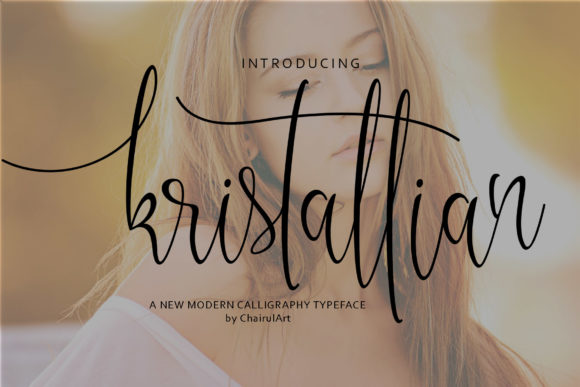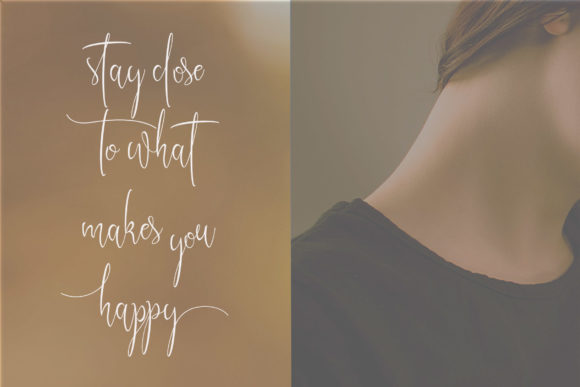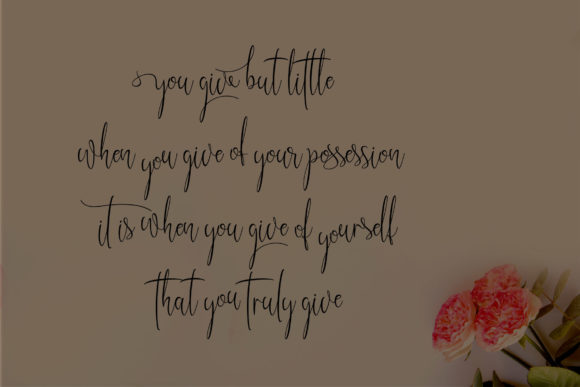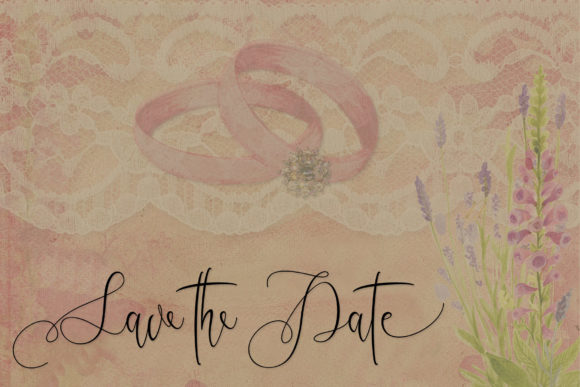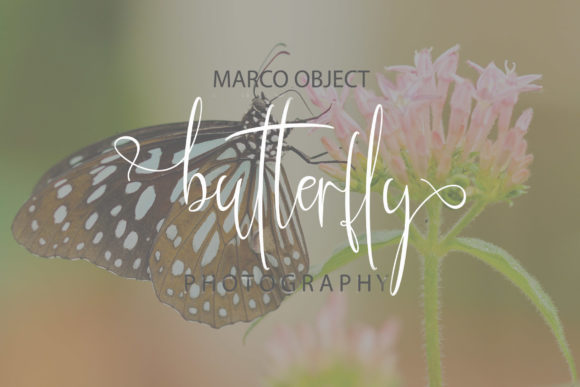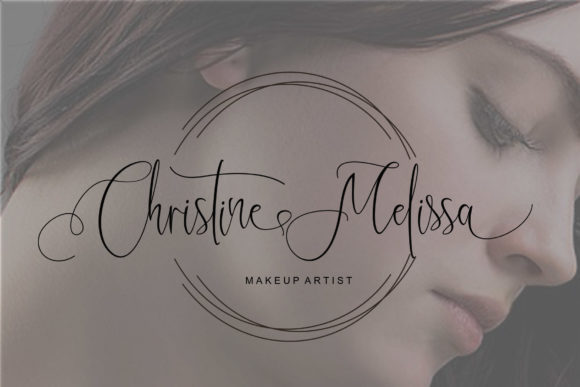
Kristallian Script Font
About Kristallian Script Font
The Kristallian is a modern script font. Every single letter has been carefully crafted to give your designs an unique handwritten touch.
It’s perfect for invitations, greeting cards, posters, name cards, quotes, blog headers, branding, logos, and much more!